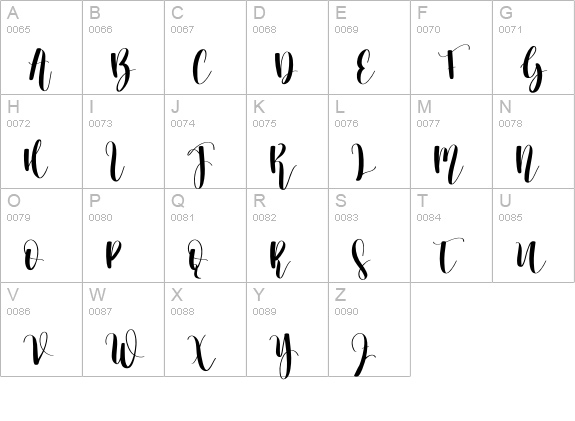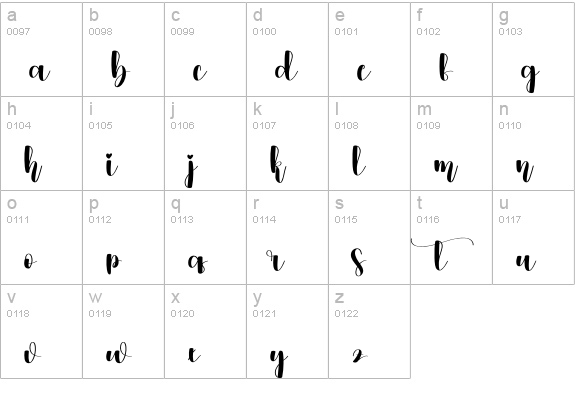
Winterlove Font Details
Winterlove is a free for personal use font in the Script > Handwritten category, designed by scratchones. It has been downloaded 7 times and is available for Windows, Mac and Linux.
Winterlove font is a whimsical and elegant typeface that captures the beauty of the winter season. With its delicate swirls and graceful curves, this font exudes a sense of romance and charm. Perfect for adding a touch of sophistication to your designs, Winterlove font is versatile and can be used for a variety of projects.